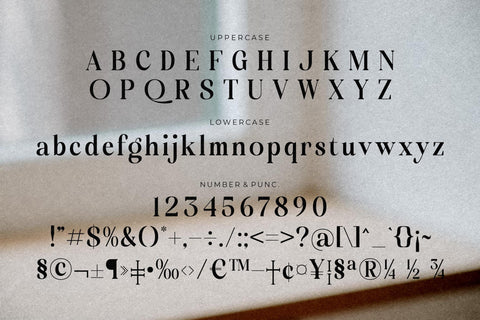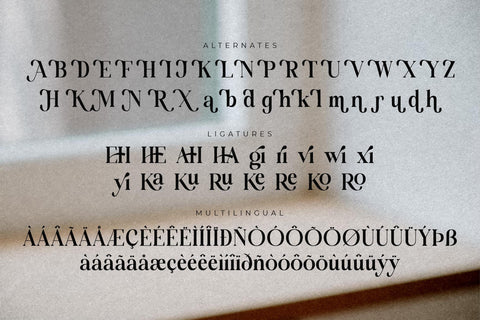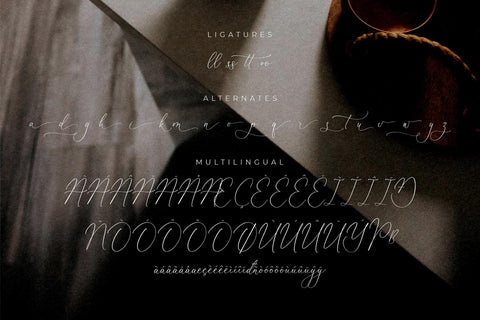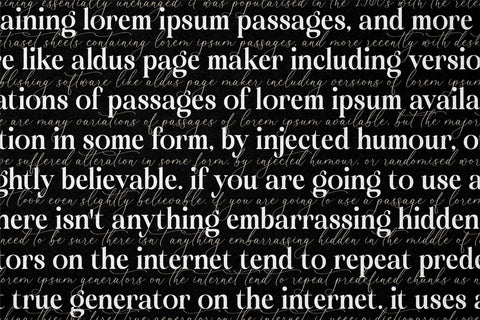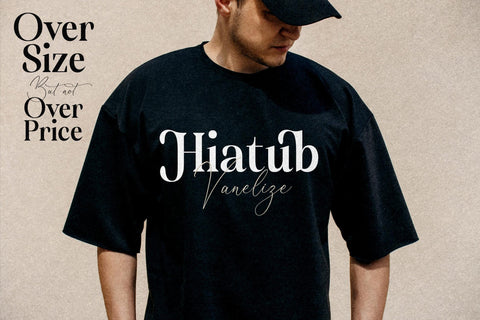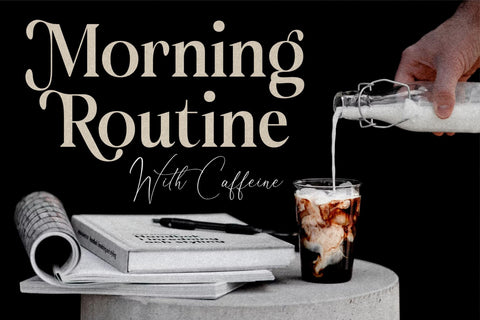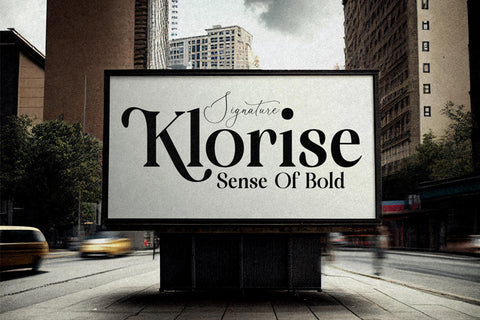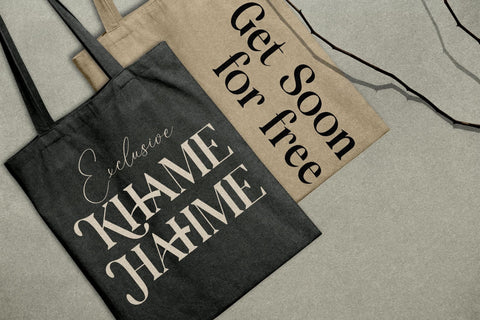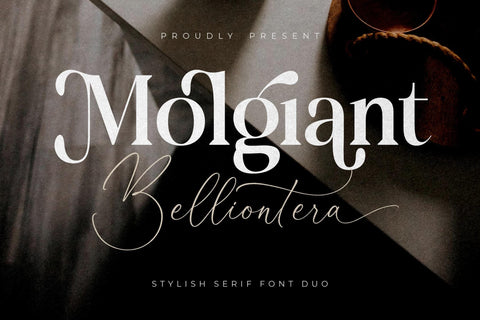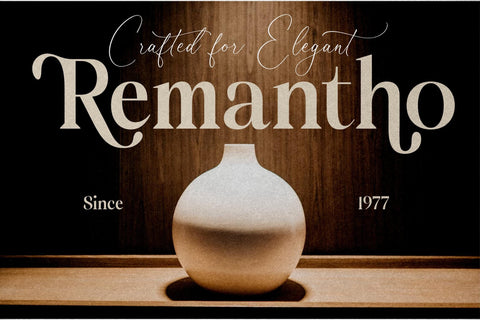
Molgiant Belliontera Font Duo
Proudly present Molgiant Belliontera Font Duo , created by Storytype,
A serif and script typeface that has own unique style & modern look.